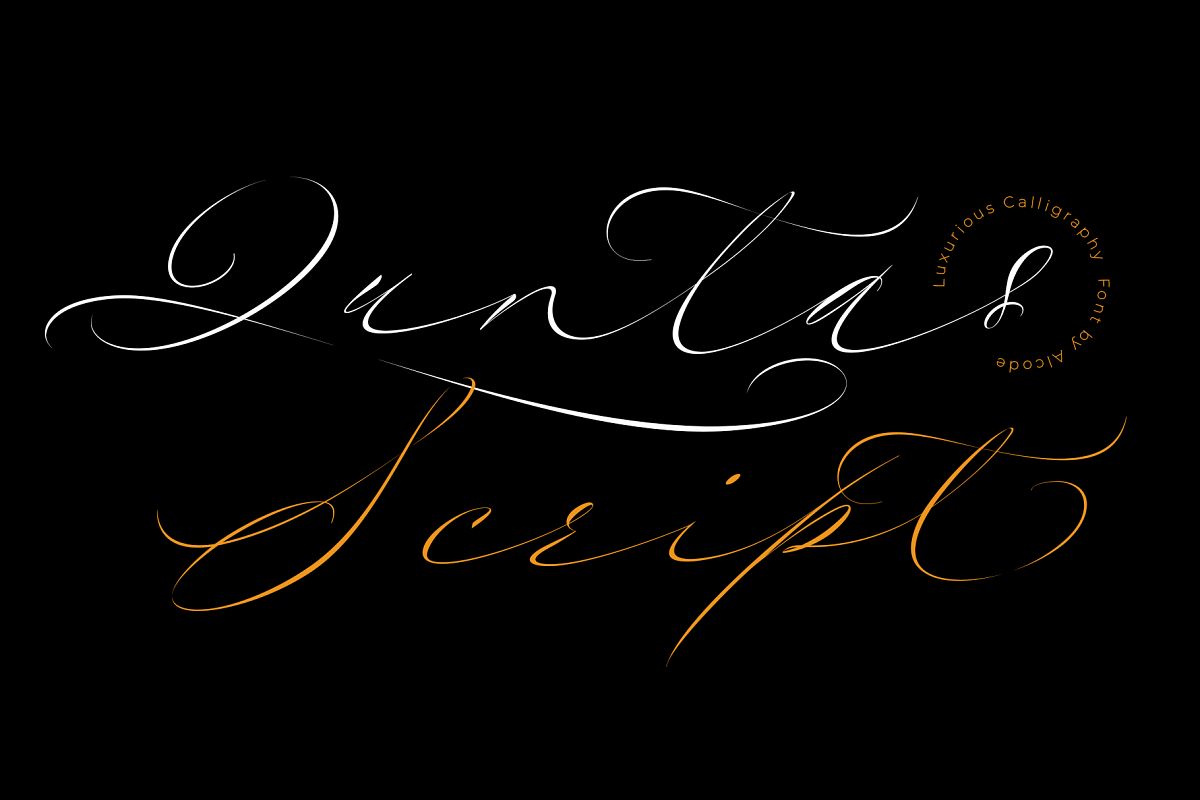
Quntas Script
The Quntas Script is calligraphy font with a classic style and a touch of elegance, inspired by the handwriting of Italian women and ancient manuscripts. Carefully designed to work together in harmony that makes it very suitable for wedding media, book covers, greeting cards, logos, branding, business cards and certificates, even for any design work that requires a classic, formal or luxurious.
Try Quntas Script, enjoy the richness of OpenType features and let her fun and elegant excitement make you happy and enhance your creativity! You can use this font very easily.
Included multiligual support and special ligatures